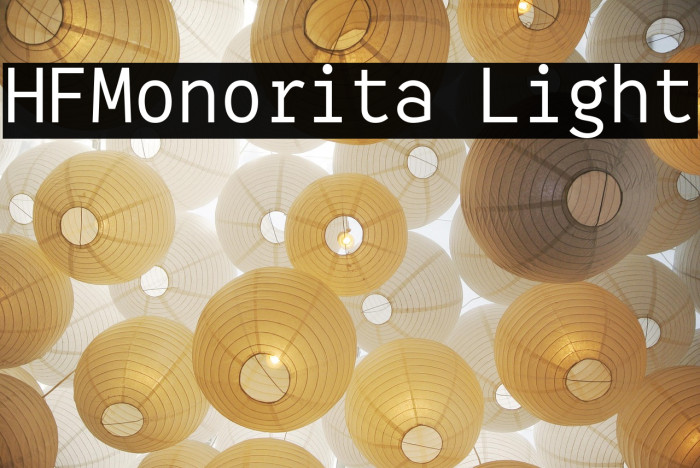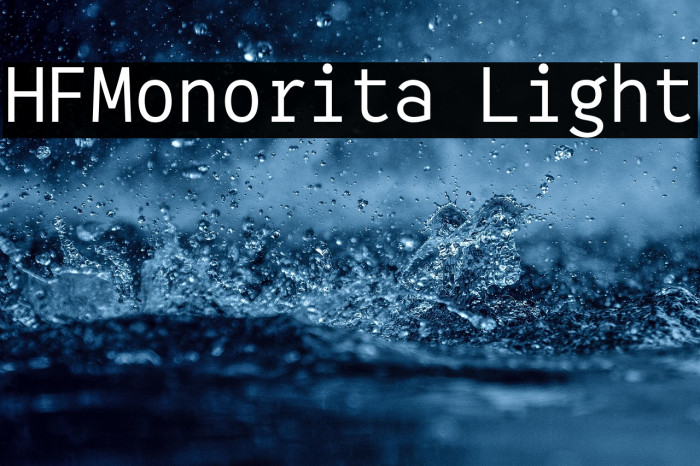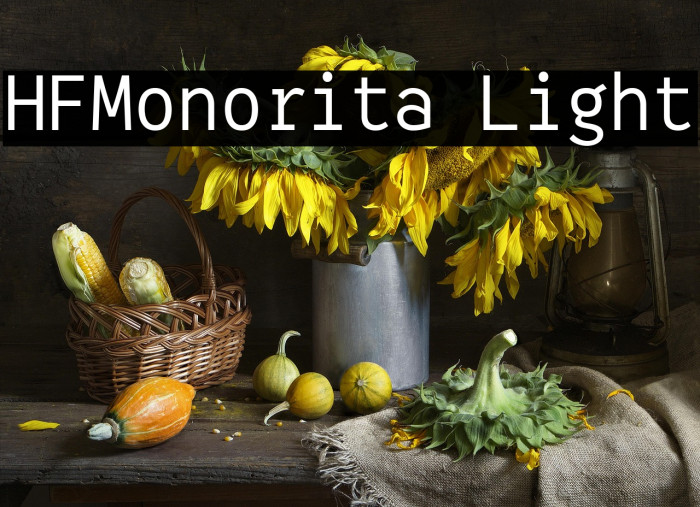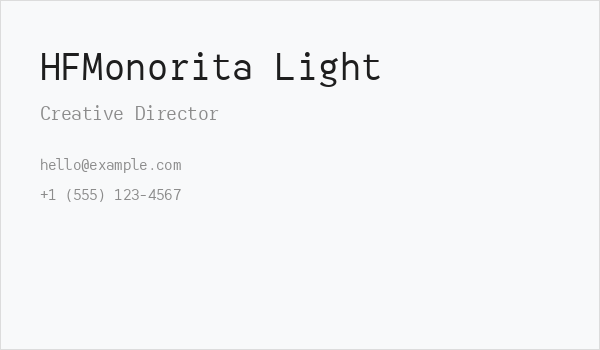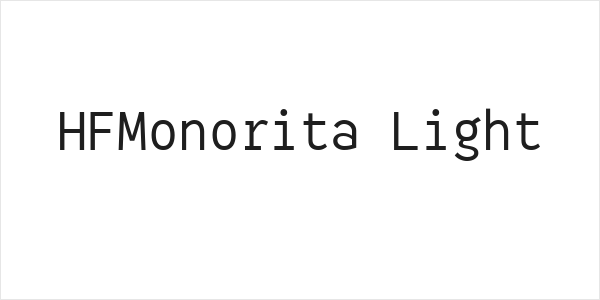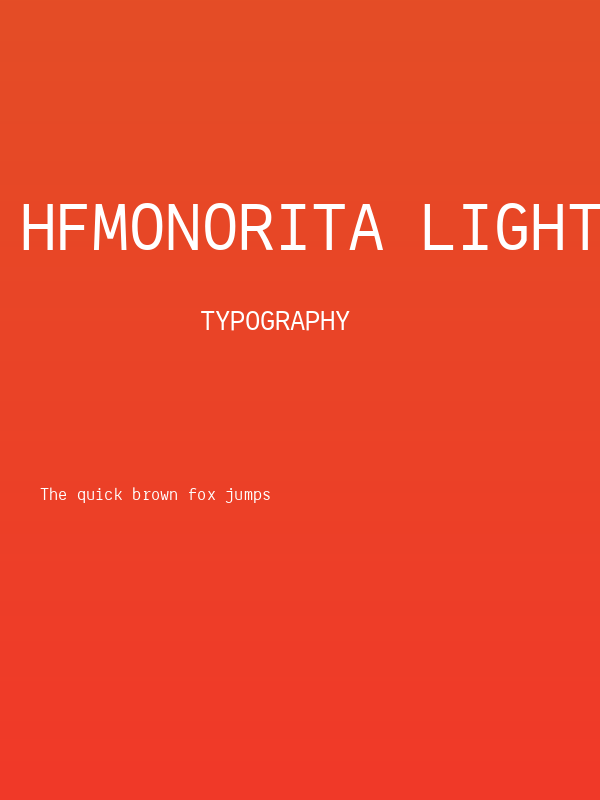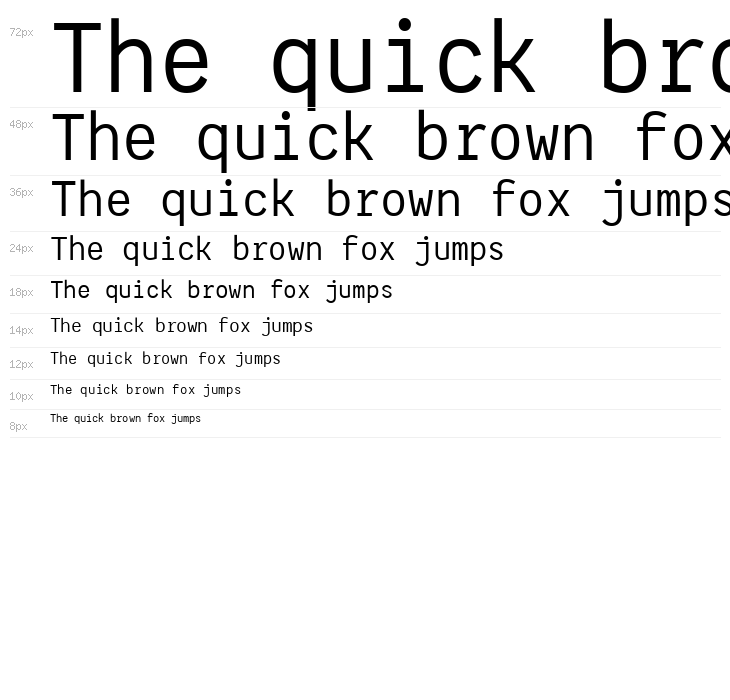
HFMonorita Light Font
HFMonorita Light Description
This font features a clean and modern monospaced design, characterized by uniform character width and a minimalist aesthetic. The uppercase and lowercase letters are well-proportioned, with a consistent stroke width that provides a balanced appearance. The numerals and special characters maintain the same monospaced structure, ensuring alignment and readability. Its simplicity and clarity make it suitable for coding, technical documents, and any application where precise alignment is crucial. The font's design is straightforward, with no decorative elements, emphasizing functionality and legibility.
| Use Case | Coding, Technical documents, Data tables |
| Proposed Projects | Ideal for coding, technical documents, data tables, and any project requiring precise alignment. |